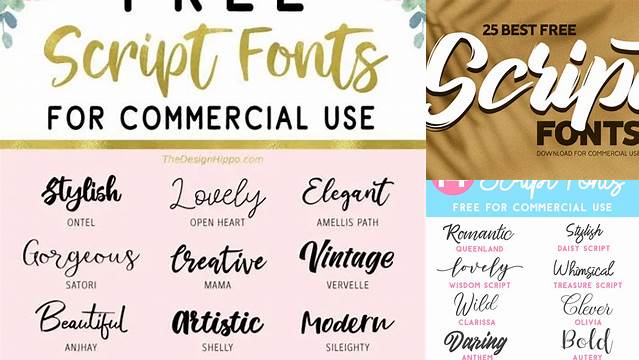
Free Commercial Script Fonts: The Ultimate Guide
Are you on the lookout for free commercial script fonts to elevate your design projects? Look no further! In this comprehensive guide, we'll dive deep into the world of script fonts, exploring what makes them unique, where to find the best free options for commercial use, and how to effectively incorporate them into your designs. Whether you're a seasoned designer or just starting out, this article will provide you with valuable insights and resources to enhance your typography skills.
Understanding Script Fonts
Let's get started by understanding the basics of script fonts. Script fonts, known for their flowing, handwritten-like style, bring a touch of elegance and personality to any design. Unlike traditional serif or sans-serif fonts, script fonts mimic the fluidity of cursive handwriting, adding a personal and artistic flair. The beauty of script fonts lies in their versatility; they can evoke feelings ranging from sophisticated and formal to playful and casual. For designers, mastering the art of using script fonts is crucial because they can be powerful tools for setting the tone and creating a visual hierarchy in your work.
However, it's not as simple as picking the prettiest font you see. There are various subcategories within script fonts, each with its own unique characteristics and ideal use cases. For example, formal scripts often feature intricate flourishes and delicate strokes, making them perfect for wedding invitations, elegant logos, and high-end branding materials. These fonts have a classic, timeless appeal and can add a touch of sophistication to any project. On the other hand, casual scripts tend to be more relaxed and playful, with a more natural, handwritten feel. These are great for projects that need a friendly and approachable vibe, such as blog headers, social media graphics, and informal invitations. Then there are the brush scripts, which mimic the strokes of a paintbrush, adding a dynamic and artistic touch. Brush scripts are popular for creating eye-catching headlines and adding a handmade feel to designs.
Understanding these nuances is essential because choosing the right script font can make or break your design. Imagine using a formal script for a children's birthday party invitation – it just wouldn't fit, would it? Or picture a casual script on a law firm's letterhead; it would hardly convey the professionalism needed. So, before you even start browsing through font libraries, take a moment to consider the message you want to convey and the overall aesthetic you're aiming for. This will help you narrow down your options and select a script font that truly enhances your design.
Creative Fabrica is another fantastic platform, though it operates on a slightly different model. While they offer a subscription service for unlimited access to fonts and graphics, they also have a section dedicated to freebies. These freebies often include stunning script fonts that are available for commercial use. The catch is that these free fonts are typically available for a limited time, so it's worth checking back regularly to see what new offerings they have. Creative Fabrica's fonts are known for their high quality and unique designs, making it a great resource for finding standout typefaces.
DaFont is a well-known name in the font community, offering a massive collection of fonts, many of which are free. However, it's crucial to pay close attention to the license information for each font on DaFont, as some are only free for personal use. To find fonts that are free for commercial use, look for the “100% Free” or “Free for Commercial Use” labels. DaFont's vast selection means you're likely to find something that suits your needs, but always double-check the license to avoid any potential issues.
Finally, don't overlook individual designers and foundries who often release free fonts as a way to showcase their work. Websites like Behance and Dribbble are great places to discover these hidden gems. Many designers will include a link to download their free fonts in the project description, making it easy to add them to your collection. Following your favorite designers on social media can also be a great way to stay updated on their latest free font releases.
In conclusion, free commercial script fonts are a fantastic resource for designers looking to add a touch of personality and elegance to their projects without breaking the bank. We've explored the diverse world of script fonts, discussed where to find them for free commercial use, and provided essential tips for choosing and using them effectively. By understanding the nuances of script fonts and following best practices, you can elevate your designs and create captivating visuals that resonate with your audience. So go ahead, explore the world of script fonts, and let your creativity flow!